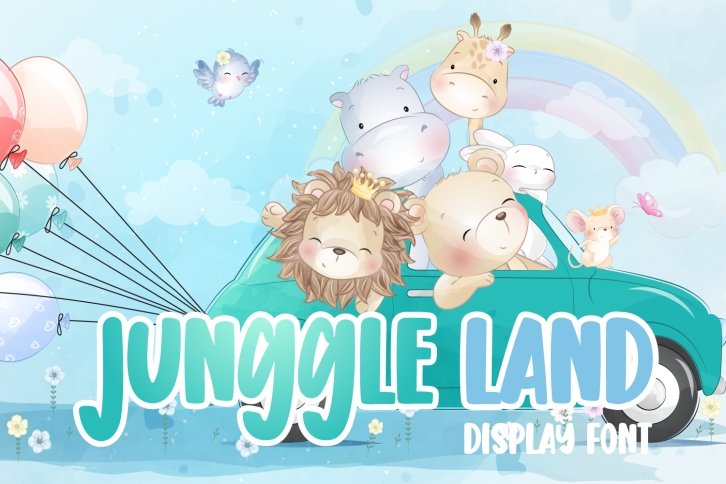
Junggle Land is a cool, cute and thick lettered display font. It is defined by smooth curves and is perfect for fashion branding or editorial designs. Add it confidently to your projects, and you will love the results.